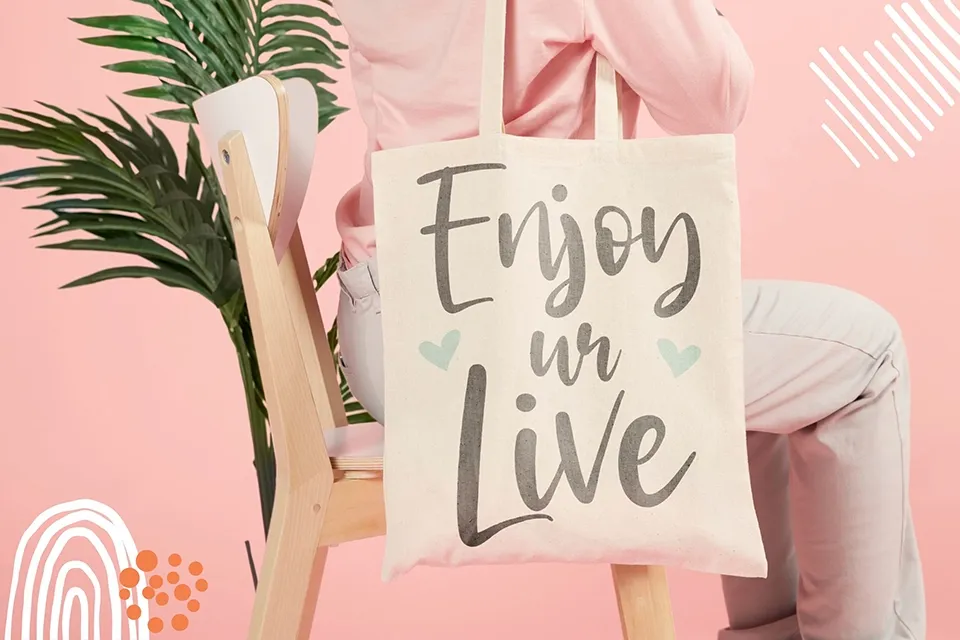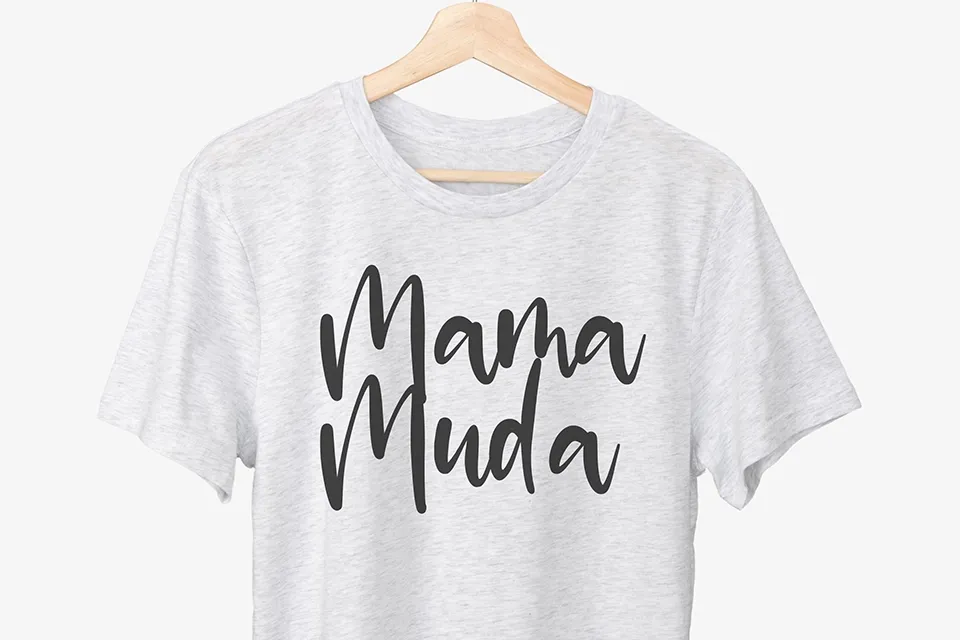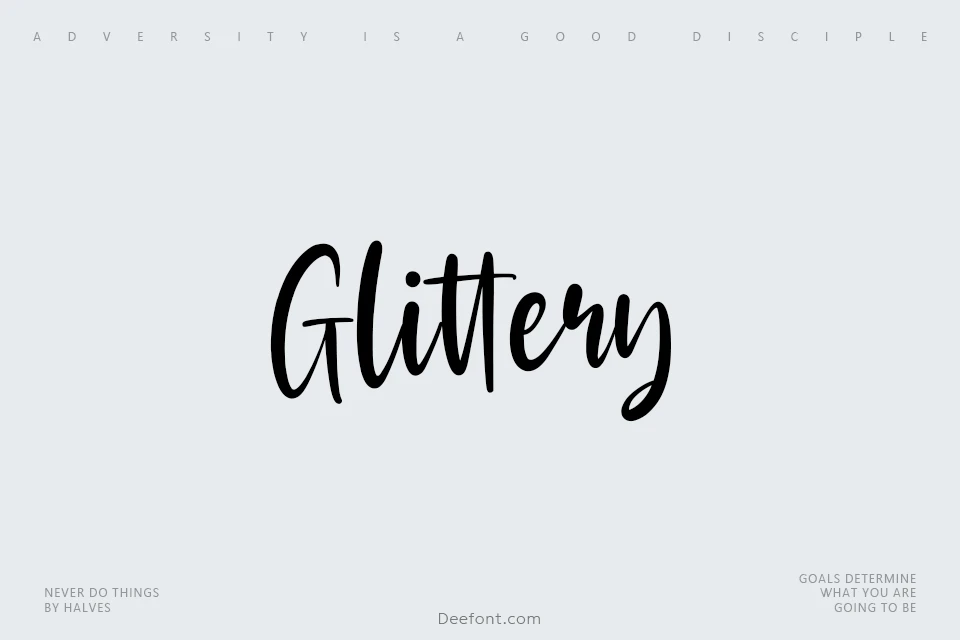
Glittery Font
Glittery Handwritten Font is a modern handwritten typeface by Balpirick. This font beautifully simplifies elegance into an outstanding script style, characterized by its flowing, handcrafted look. Designed for charm and visual appeal, Glittery is well-suited for various applications, including creating eye-catching posts for Instagram or adding a touch of sophistication to DIY calligraphy projects. It offers a refined yet approachable aesthetic, perfect for branding, invitations, and other designs needing a personal, stylish touch. This versatile font is available for both web and desktop use.